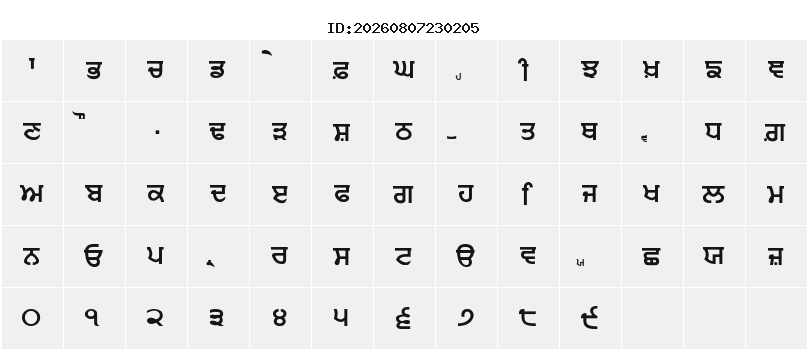
Punjabi Sans Preview
• Font Name: Punjabi Sans
• Full Font Name: Punjabi Sans
• PostScript Name: PunjabiSans
About Punjabi Sans.ttf
Punjabi Sans.ttf is a modern, elegant sans-serif font designed for ultimate readability and visual harmony. Perfect for branding, headlines, web design, and print materials.